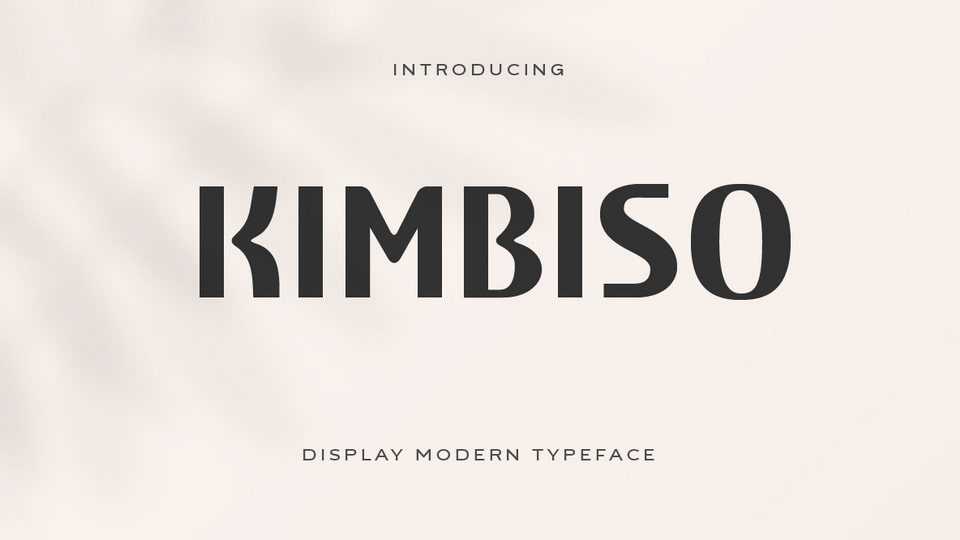
Download Kimbiso font, one of the most advanced typeface on the market. Its clean lines and ultra-modern style make it perfect for high fashion branding, cinematic videos, social media posts, and more.
Designer: Yukita Creative